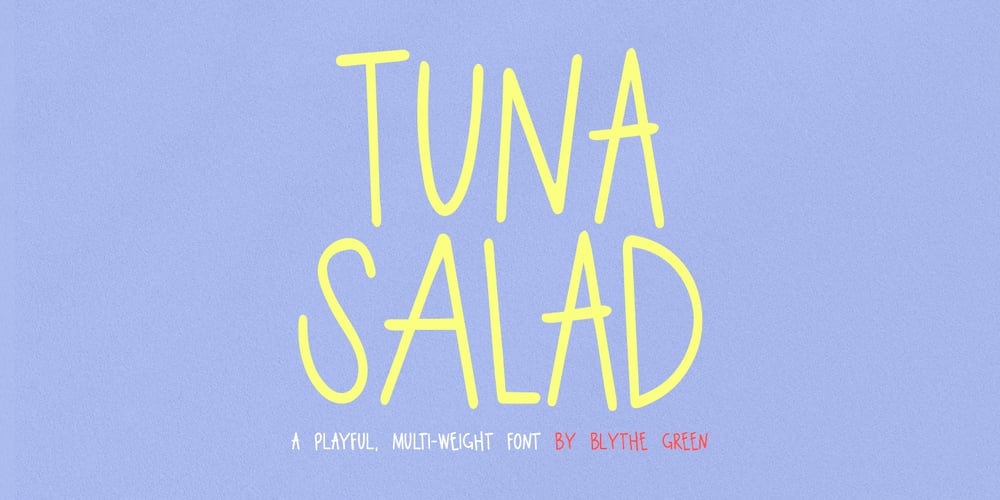
Tuna Salad
Tuna Salad font
Tuna Salad Font Family was designed by Blythe Green and published by Blythe Green. Tuna Salad contains 2 styles and family package options. Tuna Salad is a handcrafted, multi-weight, ALL CAPS font with a playful, authentic feel. Type in lowercase to explore alternate characters for each letter!It’s perfect for: logos, branding, greeting cards, posters, quotes, magazines, social media, planners, shirts, prints, and more.FEATURES: Alternate characters for each letter to give an authentic, handwritten feel for each word Light and bold to create emphasis and hierarchy in your work Multilingual accents + characters for the global designer